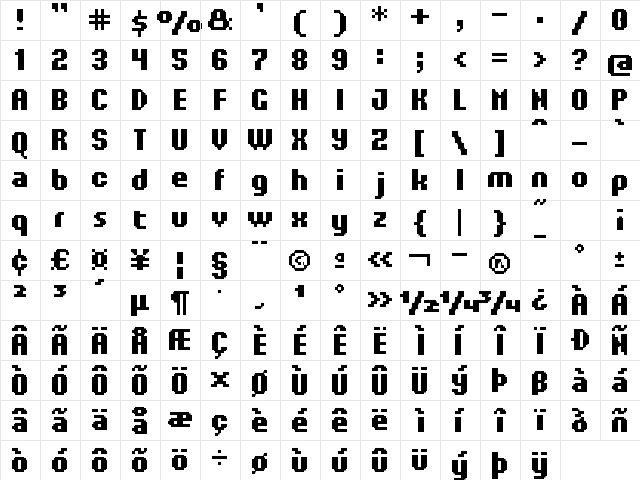
UF Orbital Bold Regular Font Preview
UF Orbital Bold Regular
UF Orbital Bold Regular Font Details
Design Context for UF Orbital Bold Typeface
UF Orbital Bold takes a measured approach to typography — its balanced proportions and neutral character make it a reliable workhorse for both digital and print work. Its bold stroke weight gives it real presence on the page.